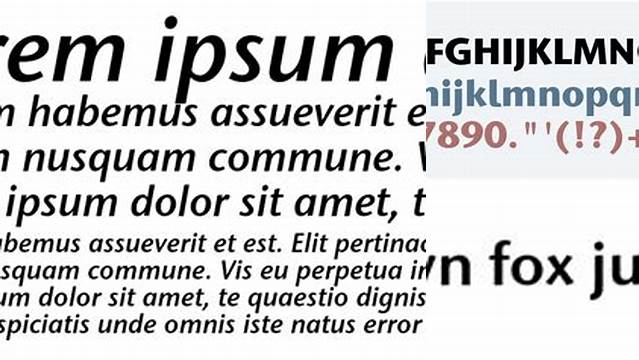
Hey guys! If you're on the hunt for a font that's both elegant and readable, then you've probably stumbled upon ITC Stone Humanist. This font family is a true classic, known for its clean lines and versatile nature. In this article, we'll be diving deep into what makes ITC Stone Humanist so special, where you can snag a free download, and how you can use it to make your designs pop. So, buckle up and get ready to explore the world of this awesome font!
What Makes ITC Stone Humanist Stand Out?
ITC Stone Humanist isn't just any font; it's a workhorse designed to handle a wide range of design needs. It was created by Sumner Stone in 1987, and it quickly became a favorite among designers for its legibility and timeless aesthetic. But what exactly sets this font apart from the crowd? First off, it has a distinctly humanistic feel, meaning that the letterforms are based on the shapes of hand-lettered characters. This gives the font a warm, friendly vibe that's super inviting. Unlike some other fonts that can feel cold or overly mechanical, ITC Stone Humanist has a natural flow that makes it easy on the eyes. It’s like a friendly handshake for your text!
Another cool thing about ITC Stone Humanist is its versatility. It comes in a variety of weights and styles, allowing you to create a diverse range of looks. Whether you need a bold headline for your website, or a subtle body text for a document, this font can handle it. It also includes both serif and sans-serif versions, giving you even more options to play with. You can combine different styles within the same design to create visual interest and hierarchy. The font’s clarity makes it excellent for long-form reading, which is a huge plus if you're designing a book, magazine, or even a long-form blog post. Imagine this font as a Swiss Army knife for your typography, providing you with all the tools you need to craft the perfect message. Moreover, it performs really well in both print and digital applications. This means that it looks fantastic whether it’s on your computer screen or printed on a physical page. So, you don’t have to worry about your design losing its impact when you switch from digital to print.
Moreover, ITC Stone Humanist offers excellent readability. Its design focuses on clarity, which makes it an ideal choice for projects where easy reading is essential. The font's letterforms are carefully crafted to minimize ambiguity, ensuring that your audience can effortlessly absorb the information. This is particularly important in projects that demand quick and easy comprehension. Additionally, the font's balanced design makes it suitable for a wide range of applications, from formal documents to casual communications. The font's neutrality allows it to complement various design styles and is adaptable to different contexts. Whether you're crafting a presentation, designing a website, or creating marketing materials, the font's readability ensures your message is clear and impactful. In short, ITC Stone Humanist helps your words look as good as they sound.
How to Use ITC Stone Humanist in Your Designs
Now that you've got your hands on ITC Stone Humanist, let's talk about how to use it to its full potential. This font is super versatile, so you can use it in a ton of different ways to elevate your designs. Let’s explore some practical tips and ideas to get you started.
First, think about using the regular weight for body text. This is where ITC Stone Humanist really shines. Its excellent readability makes it ideal for paragraphs of text, ensuring that your readers can easily digest the information. Pair it with a slightly larger font size for optimal clarity, especially on digital screens. Experiment with different line heights to find what looks best and fits the overall design aesthetic. Try out different color combinations too. Use the font to establish a consistent look and feel across your entire project. Moreover, consider using the italic version for emphasis. Italicizing words or phrases can draw the reader's attention to key ideas without being overwhelming. Use it sparingly to highlight important points or to add a touch of elegance to your design. The italic style can also be used for quotes, making them distinct from the rest of the text.
Secondly, explore bold and condensed styles for headlines and titles. The bold weight of ITC Stone Humanist makes a strong visual statement, perfect for headlines and titles. It grabs attention and sets the tone for your content. The condensed styles are great for fitting longer titles or headings into limited space, without sacrificing readability. Use this to create clear hierarchies, guiding the reader's eye through your design. Remember to balance the boldness with other elements, like negative space and other visual cues, to avoid a cluttered look. You can try the different styles, such as bold, condensed or italic, in various combinations, and the variations it offers makes it an excellent choice for creating visual interest and emphasis.
The Bottom Line
So, there you have it! ITC Stone Humanist is a fantastic font that combines readability with a classic aesthetic. With its free download readily available from many sources and its versatility in design applications, it's a great choice for designers of all levels. Whether you're working on a website, a print project, or anything in between, ITC Stone Humanist is sure to make your designs look their best. Now go forth and create some awesome designs!